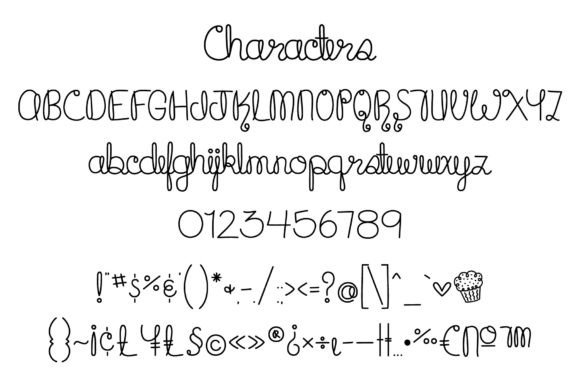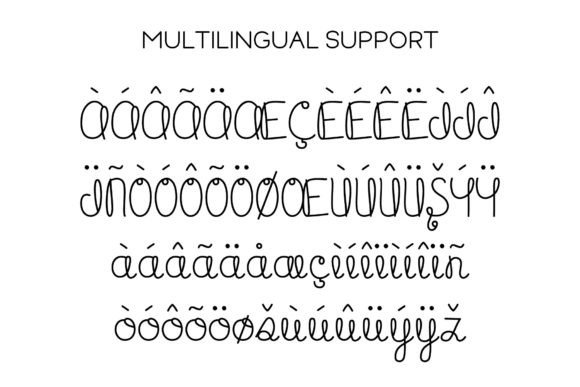
Introduction to Cupcake Pro Font
Cupcake Pro is that type of font that looks great in just about any situation, except the “too-formal” ones.
Let this fun handwritten font add friendliness and charm to your restaurant’s menu, kitchen, cookbook, or anything else that’s not food-related .